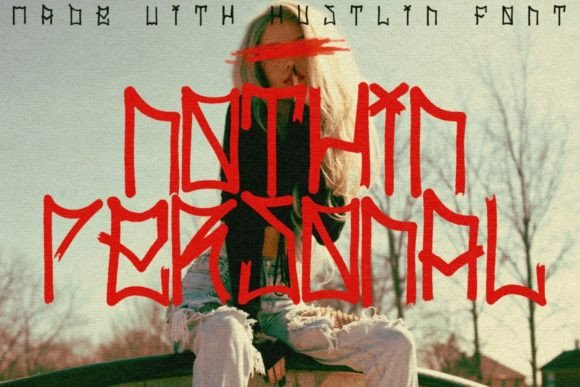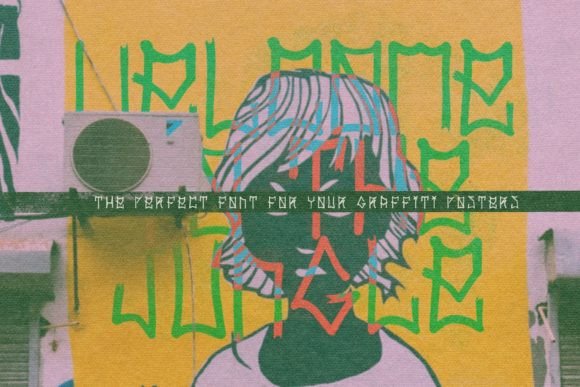
The Hustlin Font Download is a bold, urban-style handwritten display script designed to capture the energy of street culture. With graffiti-inspired strokes and a confident handwritten rhythm, it transforms ordinary layouts into dynamic and edgy designs. Because of its versatility, Hustlin is perfect for t-shirts, posters, logos, banners, and social media graphics.
A Graffiti-Inspired Handwritten Script
Hustlin combines the raw personality of graffiti with the usability of a modern display font. Unlike standard handwritten fonts, this Hustlin script font adds an urban edge while remaining legible. As a result, it is ideal for projects that demand style, impact, and originality.
Perfect for Merchandise and Streetwear
Streetwear brands and merchandise designers will love the Hustlin Font. It works beautifully on t-shirts, hoodies, mugs, and tote bags. Moreover, its bold, marker-like strokes ensure your message stands out across apparel and lifestyle products.
Branding and Logo Design with Hustlin Font
Typography is a key part of branding, especially in modern urban culture. The Hustlin handwritten font is excellent for logos, product packaging, and advertising campaigns. In addition, it gives businesses a cool, authentic personality that appeals to younger, trend-focused audiences.
Posters, Flyers, and Event Designs
Large-scale projects require fonts that grab attention instantly. The Hustlin Font Download is ideal for event flyers, music posters, and promotional banners. Therefore, it is a great choice for artists, musicians, and brands that want to make a bold statement.
In the digital world, urban-style fonts bring creativity and authenticity. The Hustlin typeface integrates seamlessly into Instagram posts, YouTube thumbnails, Pinterest graphics, and blogs. Its graffiti-inspired look ensures your digital content is bold and memorable.
Why Designers Choose Hustlin Typeface
Designers appreciate fonts that balance style with function. Many graffiti fonts lose readability, but the Hustlin handwritten script maintains clarity while keeping its urban character. This makes it suitable for professional branding and personal projects alike.